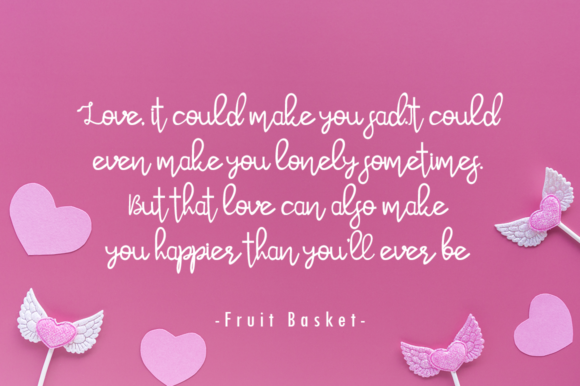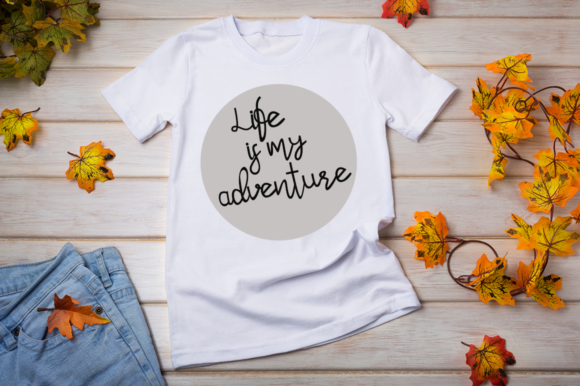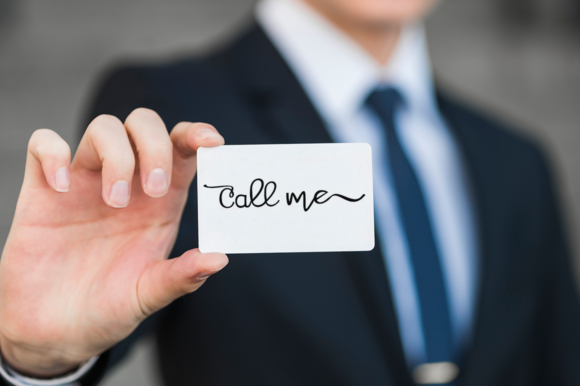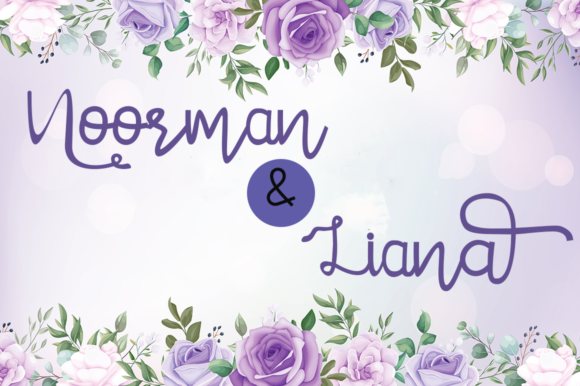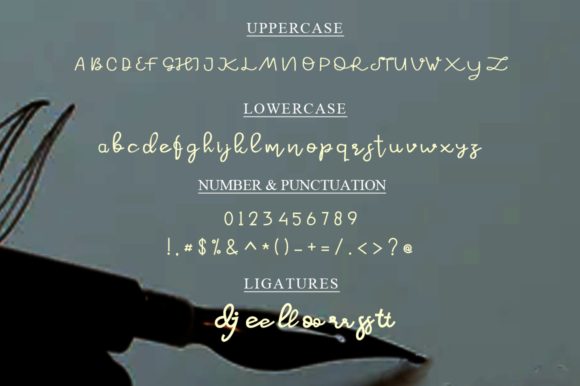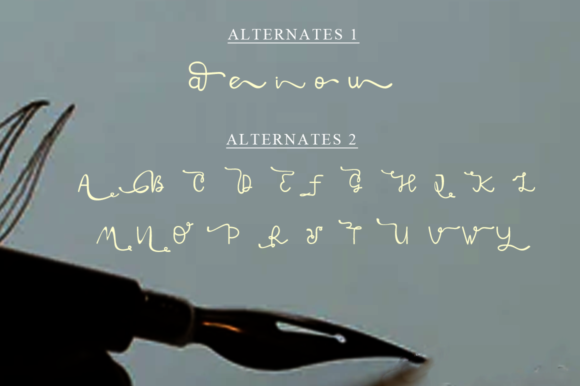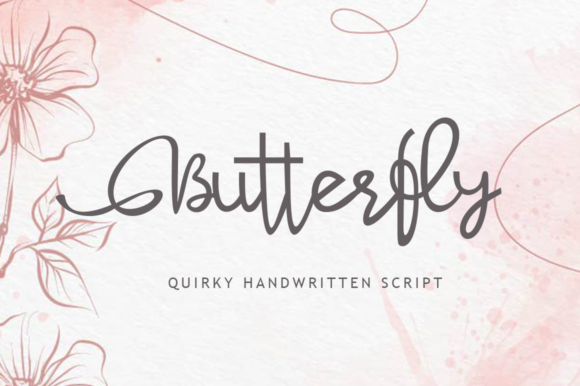
The Magical World of Butterfly Font: A Designer’s Delight
I’ll never forget the moment I stumbled upon the perfect font for a client’s wedding invitation project. I had been searching for hours, trying out different fonts, but none seemed to capture the elegance and whimsy I was looking for. That was until I discovered the Butterfly font. With its magical script and touch of sophistication, it was love at first sight! In this article, I’ll share my experience with this beautiful font, its features, and how to make the most of it in your designs.
An Honest Review of Butterfly Font
So, what makes Butterfly font so special? Let’s dive into the good stuff! 😊
• ✨ Elegant and whimsical script style, perfect for creative projects
• 💫 Highly versatile, suitable for various design applications, from Instagram posts to calligraphy scripts
• 🎨 Beautifully crafted to add a touch of artistry to any project
While Butterfly font is a stunning addition to any design project, it’s not without its quirks. Here are a few things to keep in mind:
• 🤔 Some users may find the font a bit over-the-top for certain projects, such as minimalist designs
• ⚠️ As with any script font, it may not be the best choice for body text or long-form content
A Practical Guide to Using Butterfly Font
3. Experiment with the font’s OpenType features, such as swashes and glyphs, to add some flair to your design
Butterfly font was created with the intention of capturing the essence of elegance and whimsy. The designer, inspired by the beauty of nature and the world of art, carefully crafted each glyph and swash to create a truly unique font. With its PUA encoding, Butterfly font is designed to be accessible and easy to use, making it perfect for designers and crafters alike.
What is PUA encoding, and how does it benefit the user? PUA (Private Use Area) encoding allows for easy access to glyphs and swashes, making it simple to use the font’s creative features.
Is Butterfly font suitable for body text or long-form content? While Butterfly font is beautiful, it’s not recommended for body text or long-form content. It’s best used for titles, headings, or creative projects.